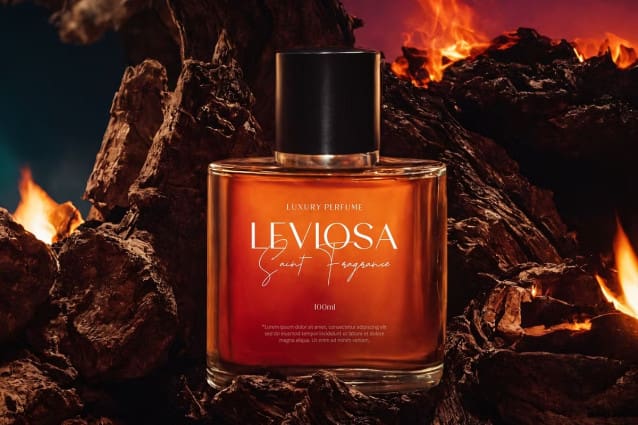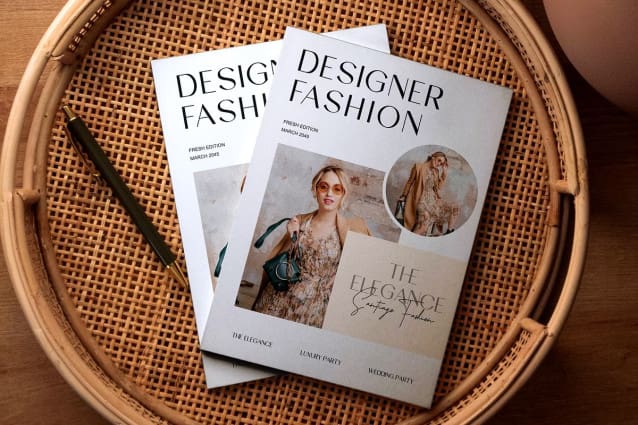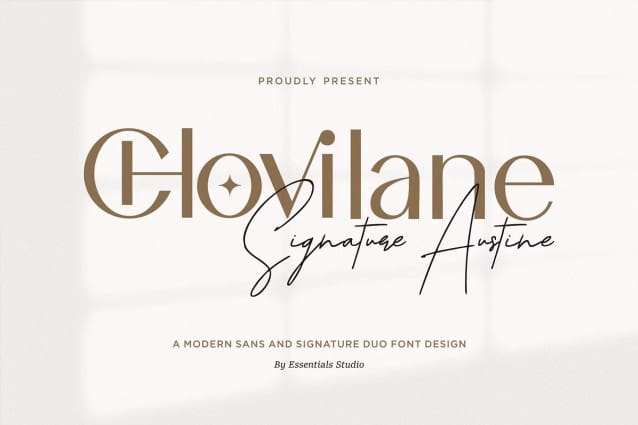
Chovilane Font
Chovilane Font – Chovilane Signature Austine, a remarkable duo font incorporating the best of Sans and signature styles. Beautifully crafted by the skilled hands of Essentials Studio, this font is versatile enough to add poise to your wedding invitations, inject charisma into your products or branding initiatives, or elevate your social media posts to artistry. Exquisitely embodied in magazine spreads and product packaging, this font also effortlessly stands alone, accentuating words arranged over backgrounds. The Chovilane Signature Austine – the ultimate blend of style and sophistication for every designer’s Supply.